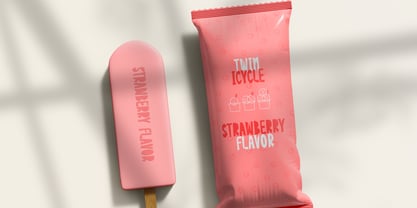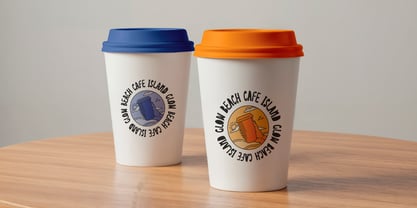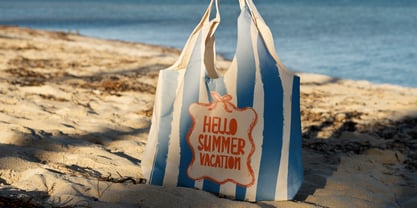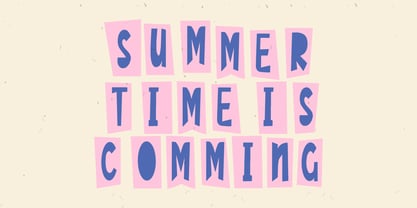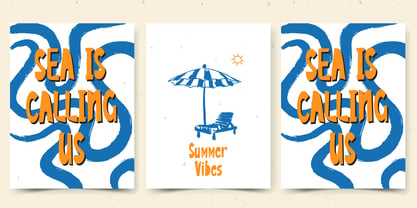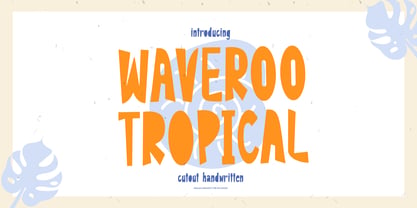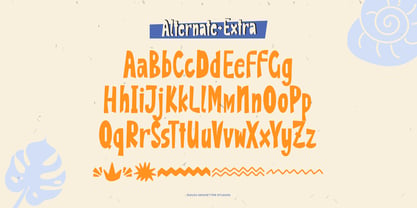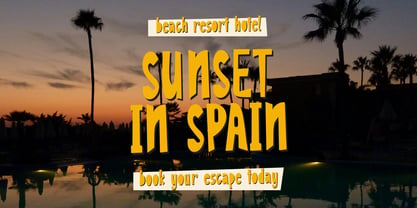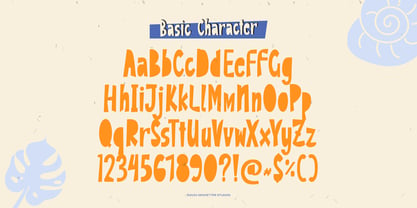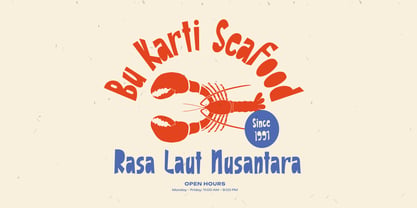
Waveroo Tropical
by Tini Fitriani
The Waveroo Tropical Font Family and published by Tini Fitriani. Waveroo Tropical contains 1 styles. More about this family
Waveroo Tropical | Handwritten Script, from Gracetypestudio, suitable for any projects such as: logos, branding projects, homeware designs, product packaging, mugs, quotes, posters, shopping bags, t-shirts, book covers, name card, invitation cards, greeting cards, label, photography, watermark, special events, and all your other lovely projects that need a Handwritten Script taste.